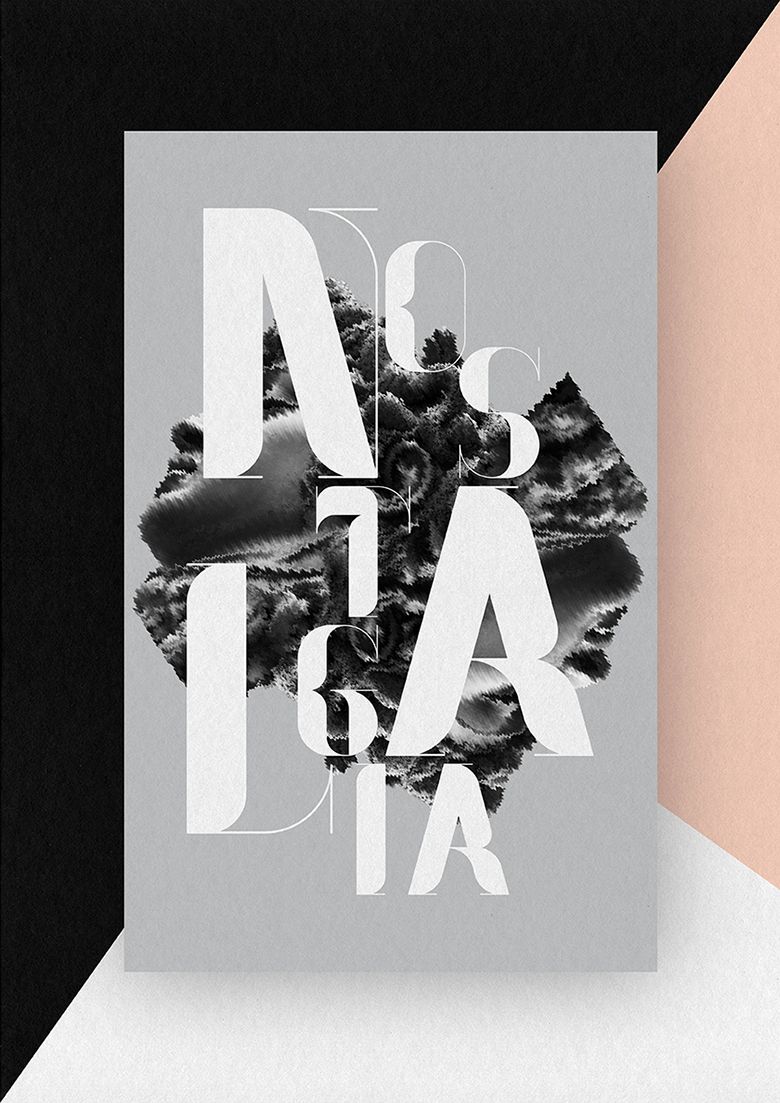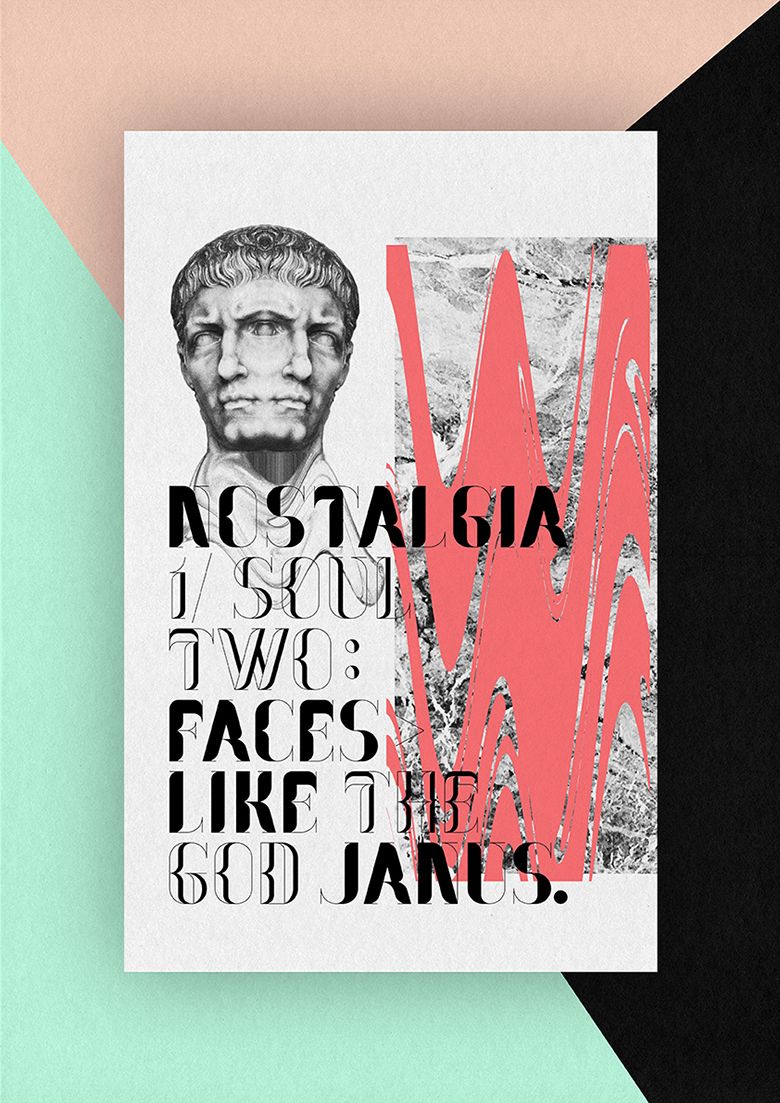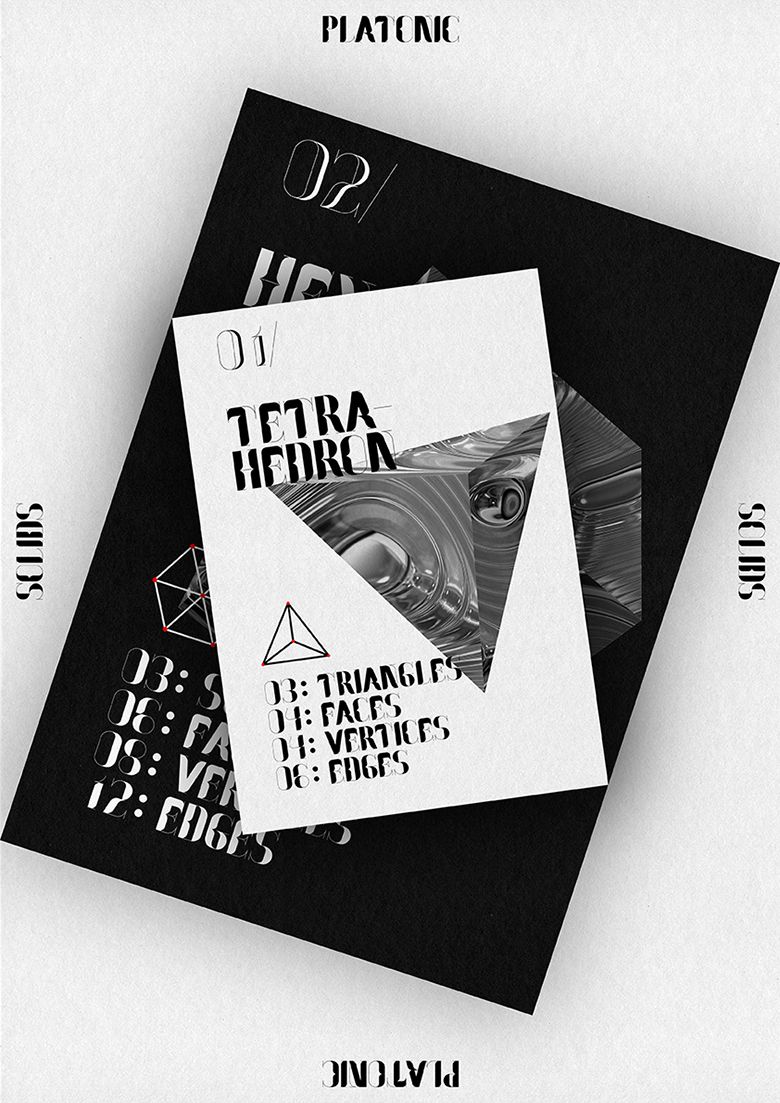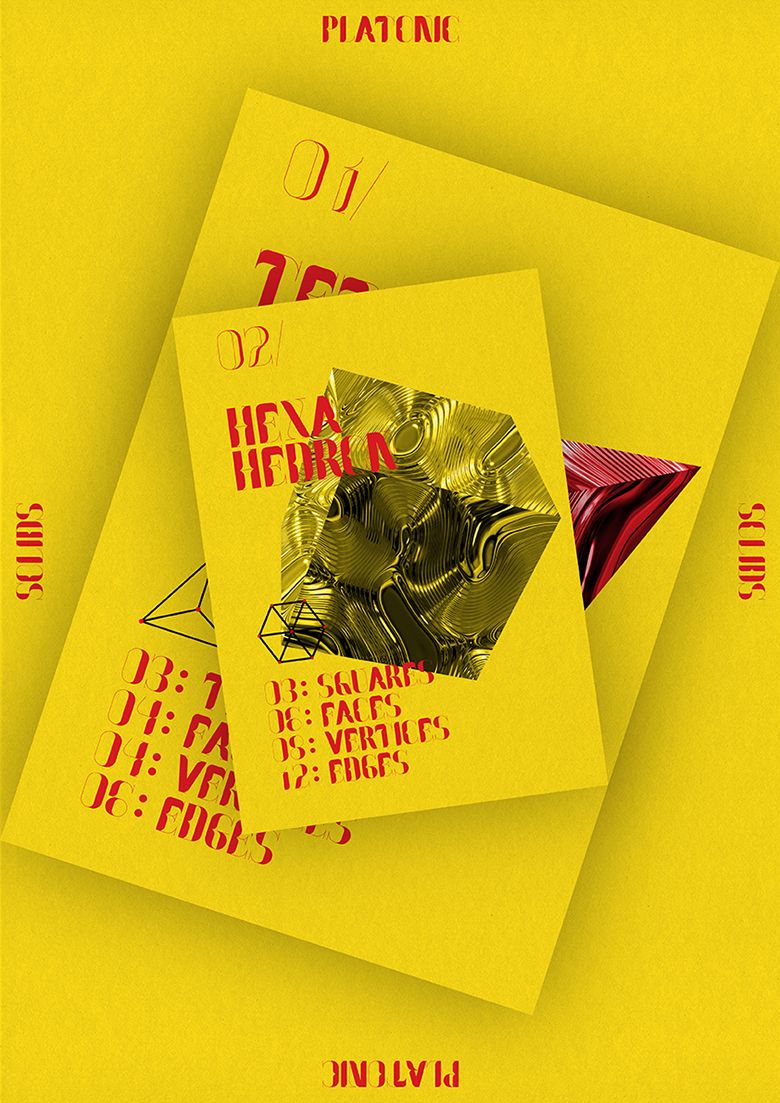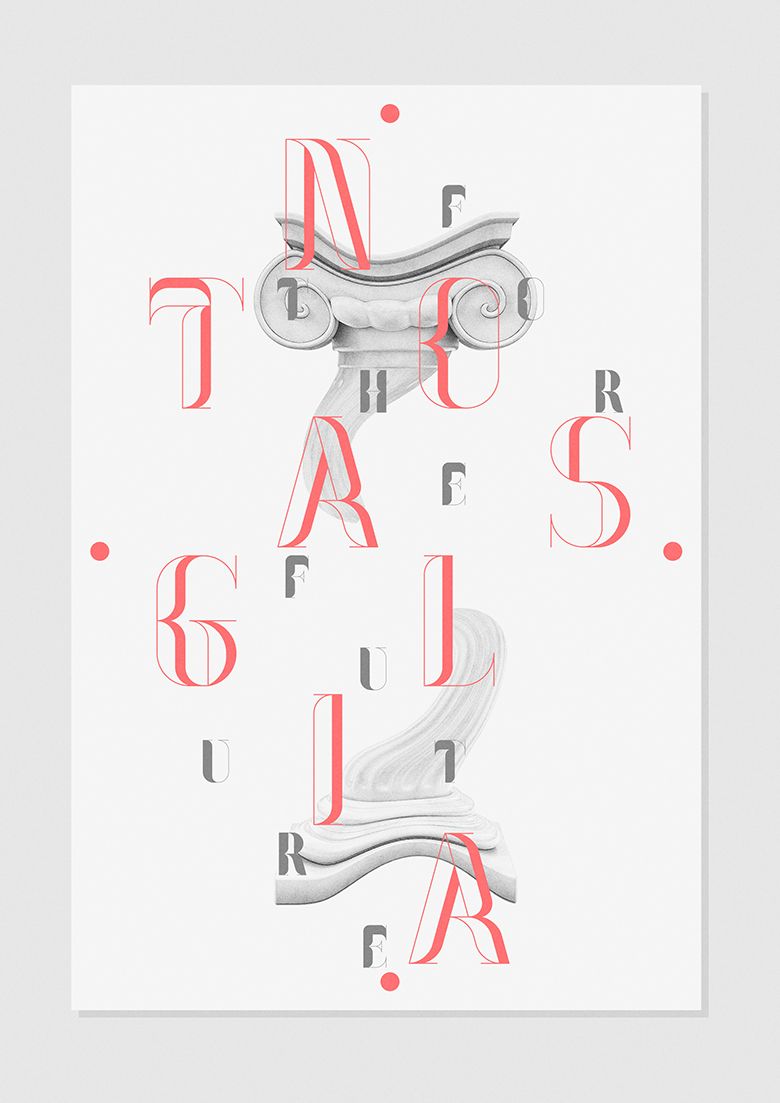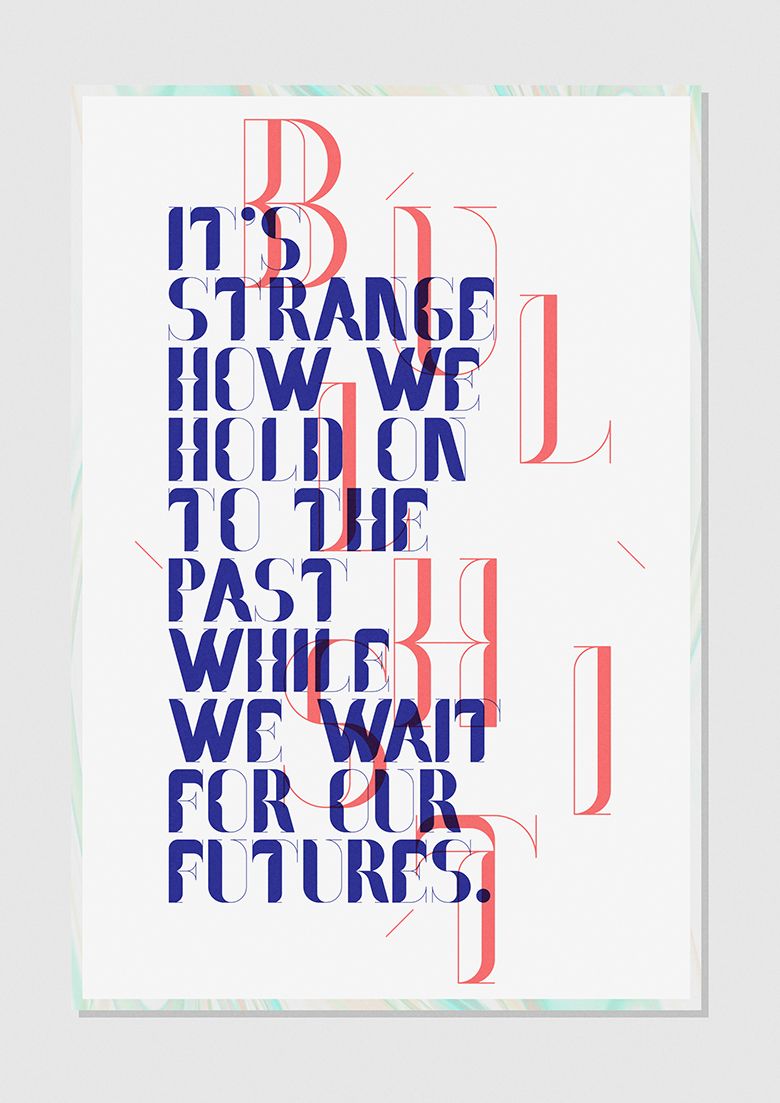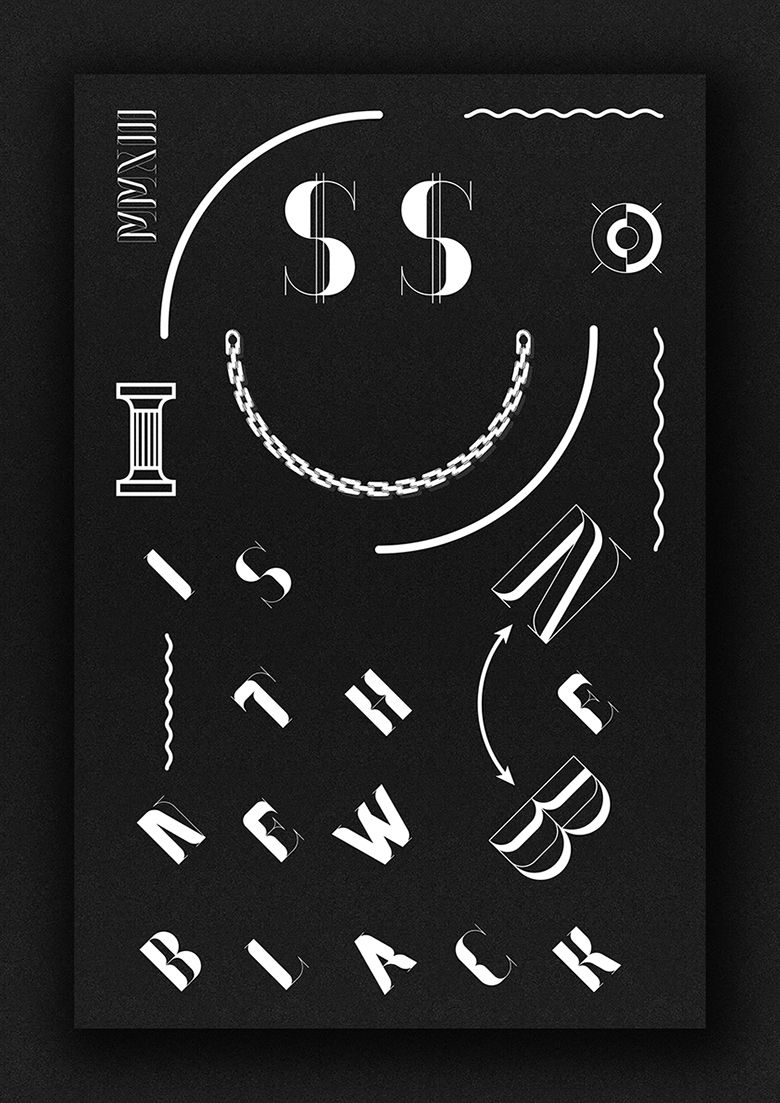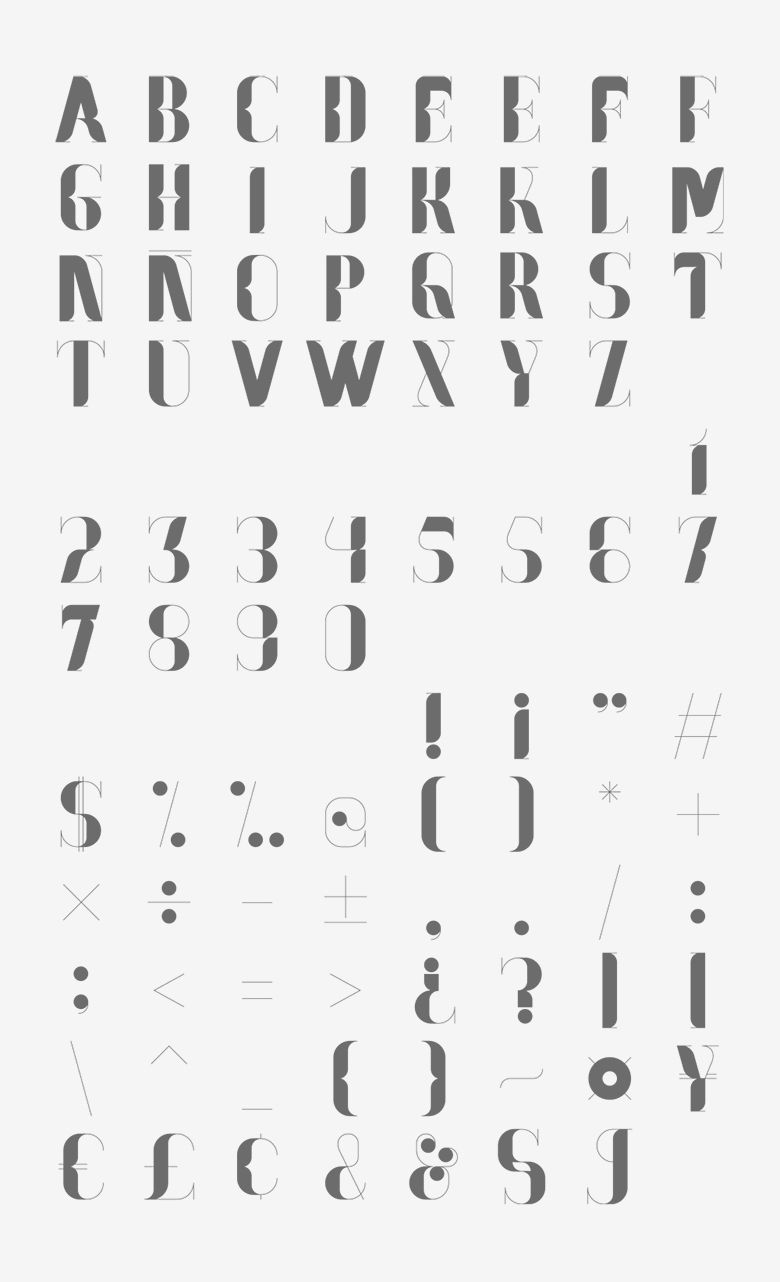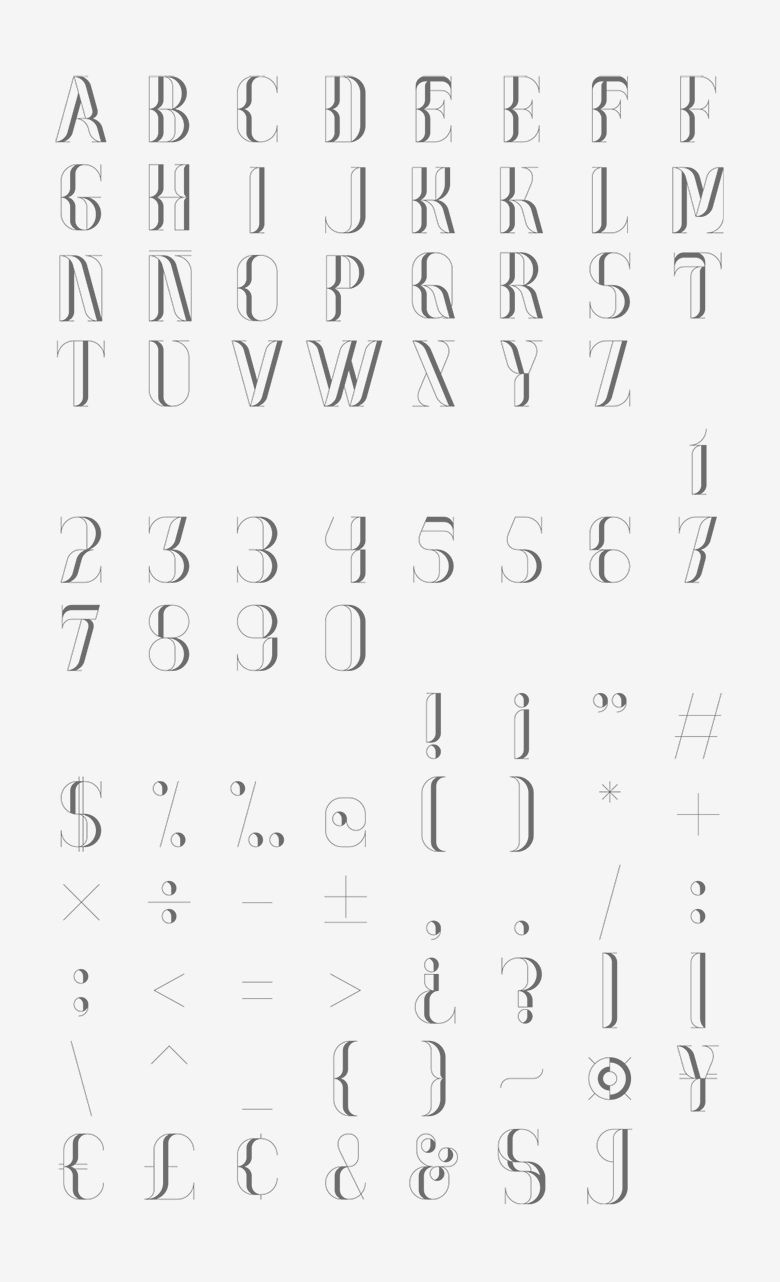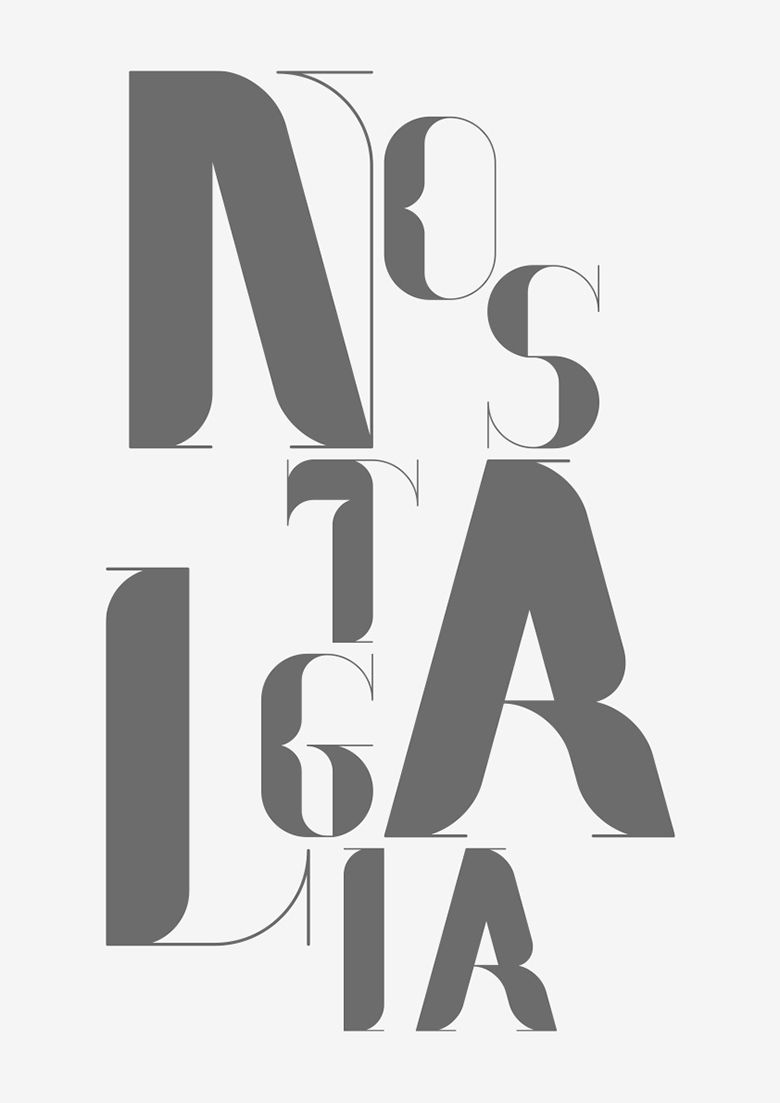
Nostalgia Typeface
Nostalgia / Hypefortype
Exclusive Faces vol. 06
One soul - Two faces
Nostalgia took its inspiration from Classic Roman Typeface. I worked with the idea of creating an inverted serif. The font is made up of geometric modules, however I spent time experimenting with each individual letterform to achieve completely random results. I also liked the idea of having two fonts at the same time, so I created the bevel version too.